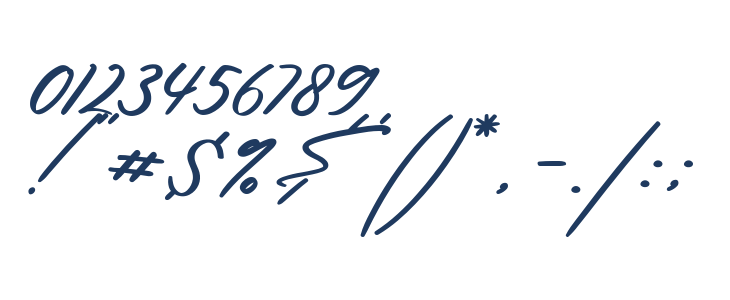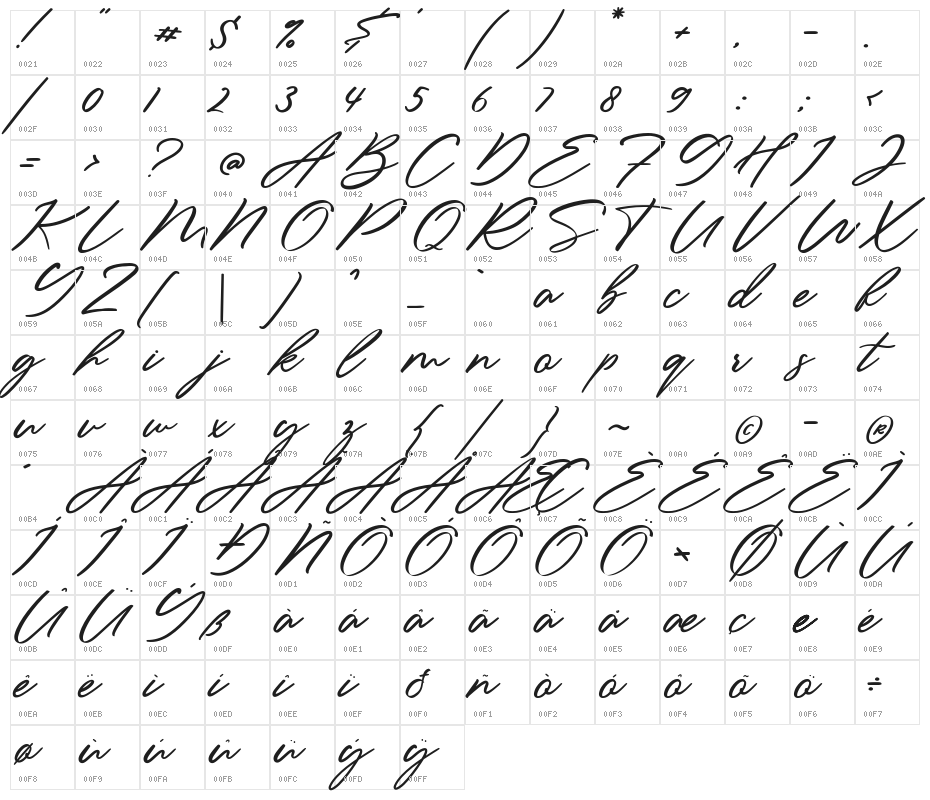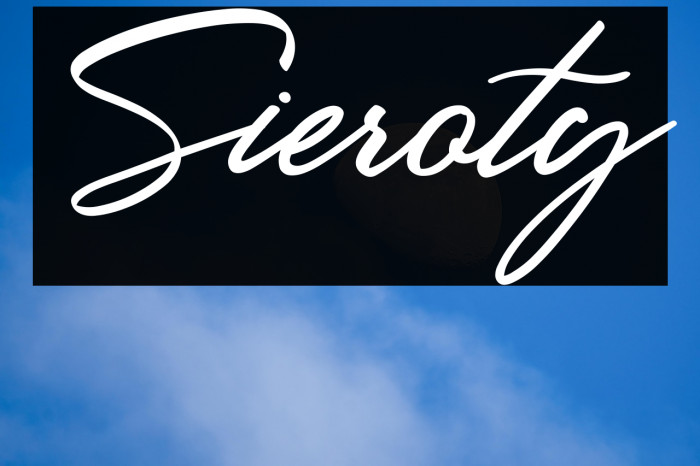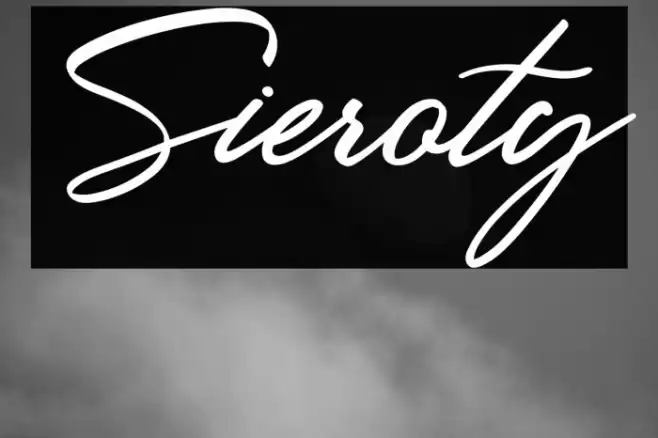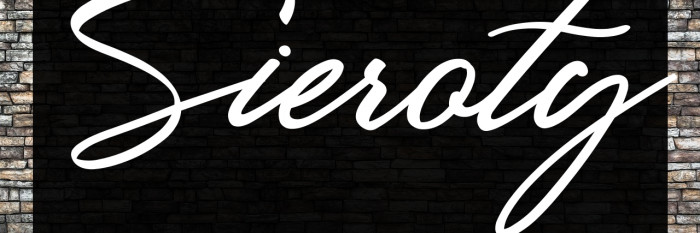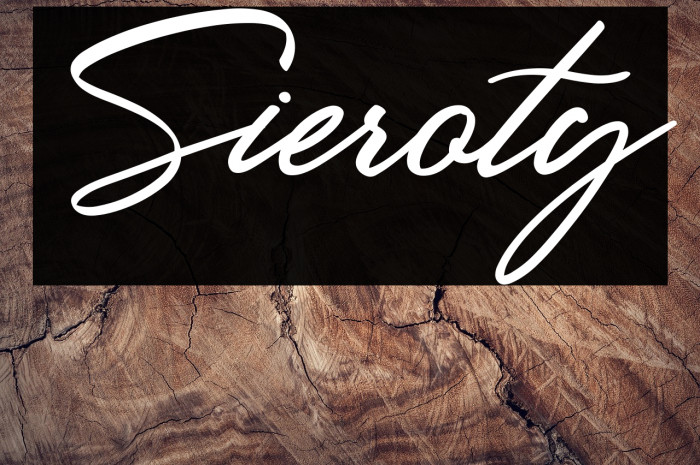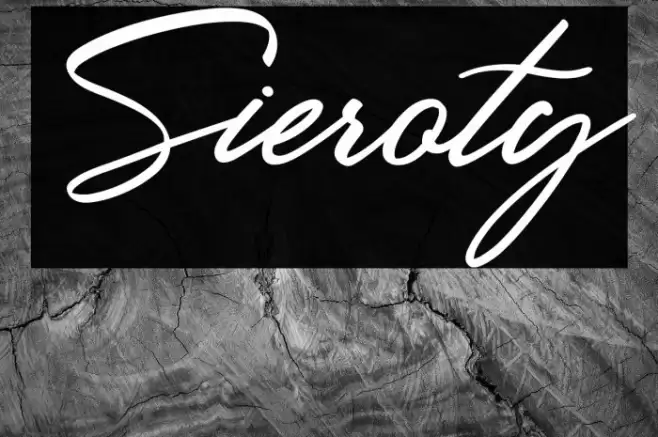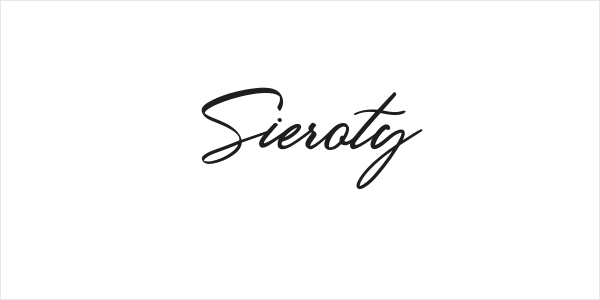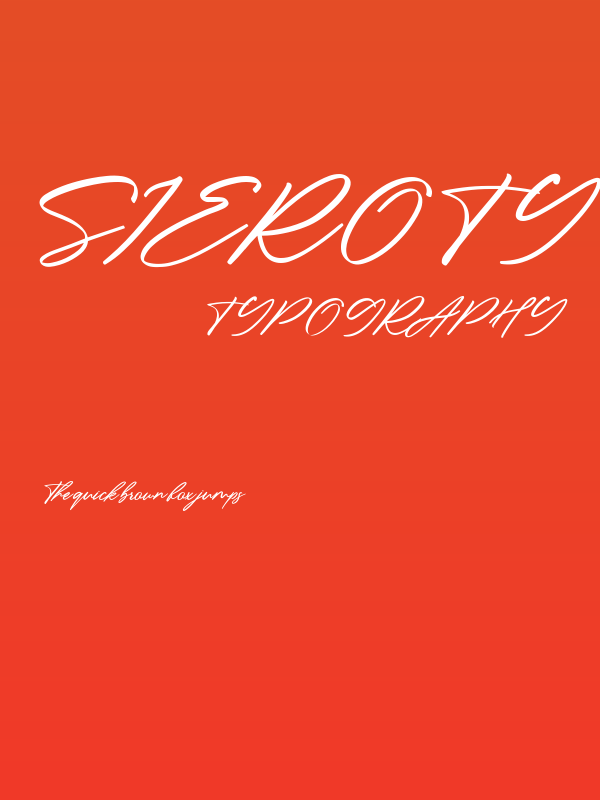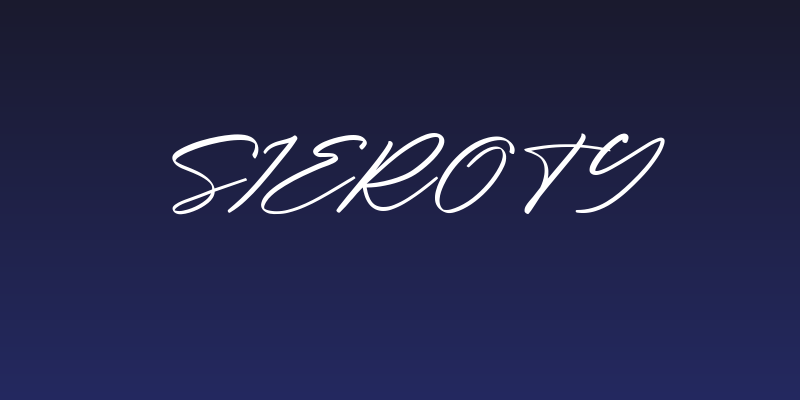
Sieroty Font
Sieroty Description
This font exudes a fluid and elegant handwritten style, characterized by its smooth, flowing curves and connected letterforms. The uppercase letters maintain a consistent slant, giving a sense of motion and grace. The lowercase letters are equally fluid, with some characters featuring distinctive loops and swashes that enhance the overall aesthetic. The numerals are well-integrated, maintaining the same cursive style, which adds to the cohesive look of the font. Special characters are designed with the same attention to detail, ensuring they blend seamlessly with the rest of the typeface. This font is perfect for projects that require a personal touch, such as invitations, greeting cards, or branding materials that aim to convey elegance and sophistication.
| Proposed Projects | Ideal for wedding invitations, personal branding, greeting cards, and elegant packaging. |